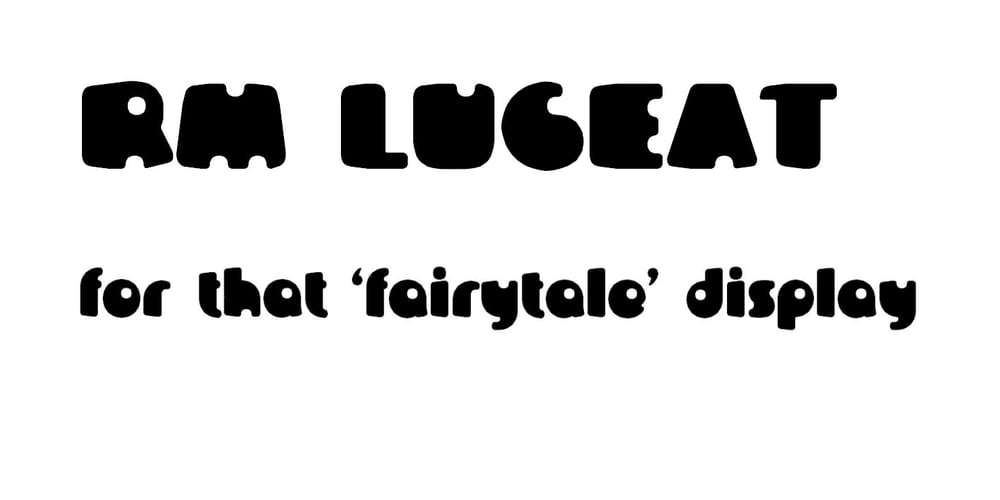
RM Luceat Font Family was designed by Ray Meadows and published by Ray Meadows. RM Luceat contains 1 styles and family package options. With a nod to the Golden Age of children’s stories, this delightful font will have many uses. ‘Luceat’ is the Latin for ‘shine’ and we arer sure you will agree that this is a shining example of the genre. Due to the modular nature of this design there may be a very slight lack of smoothness to the curves at extremely large point sizes (around 200 pt and above).